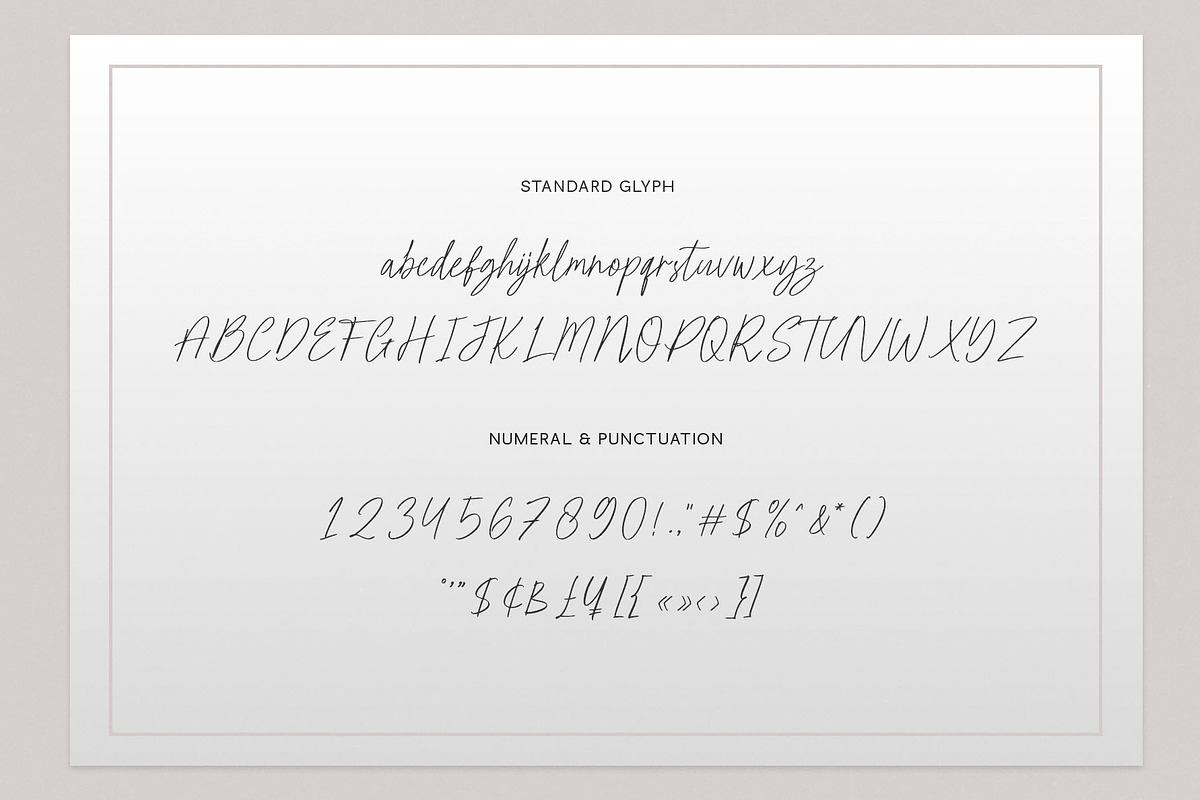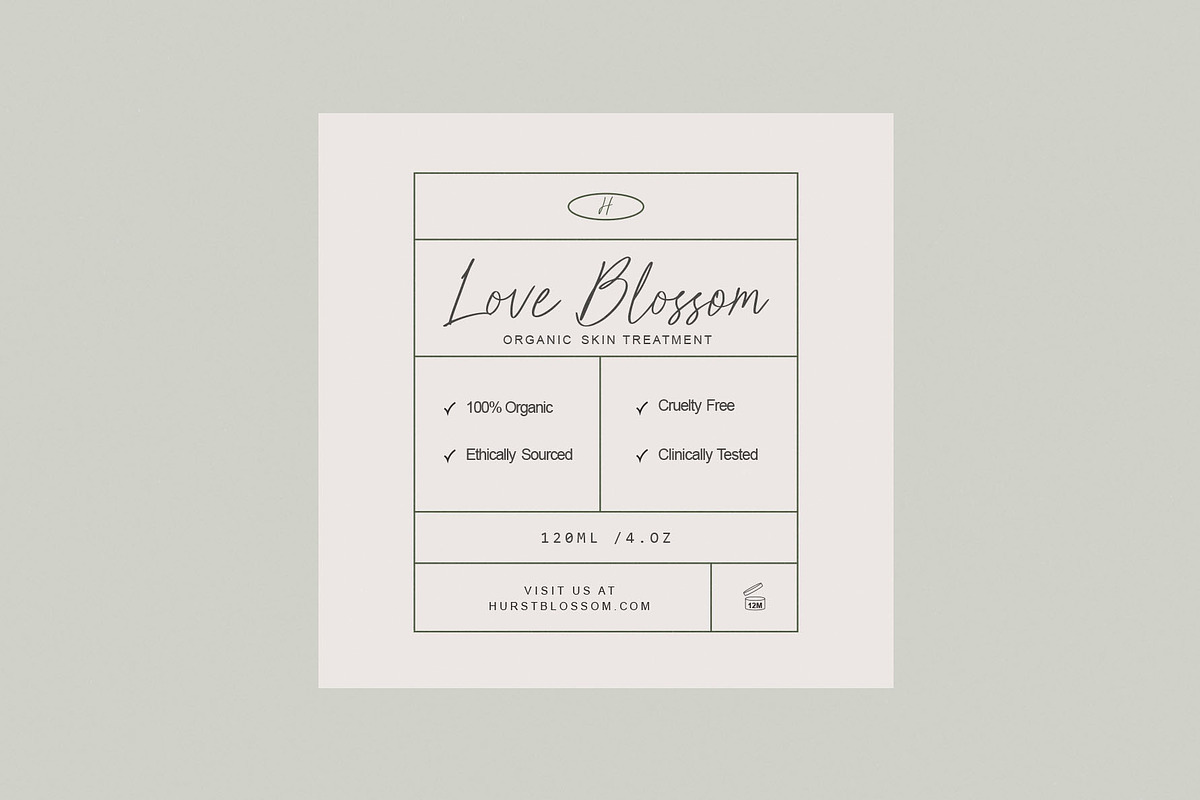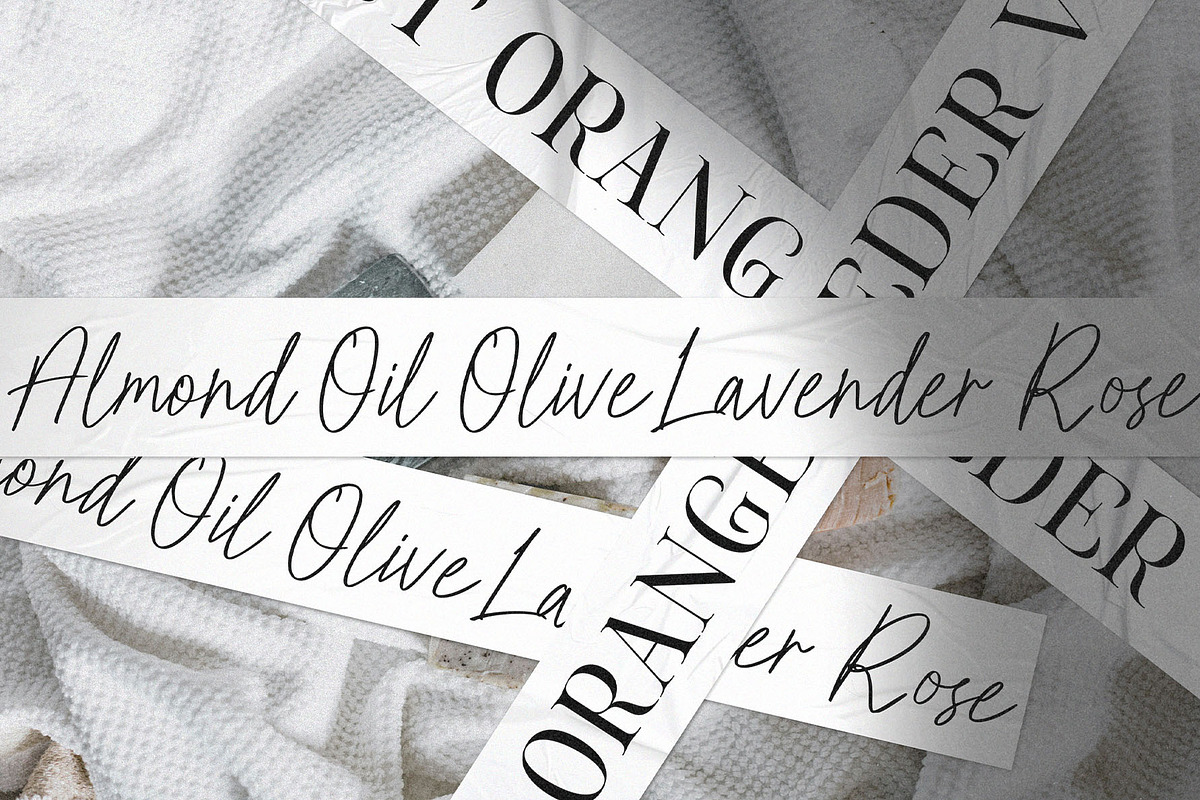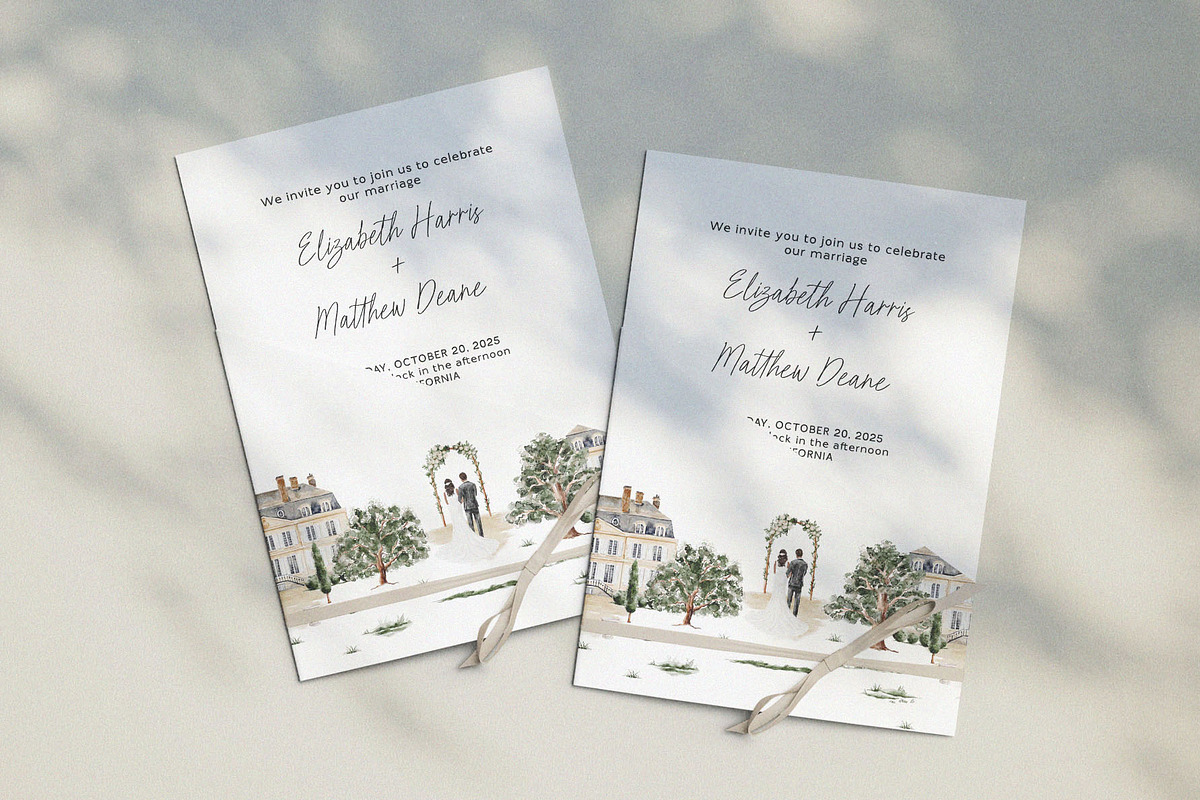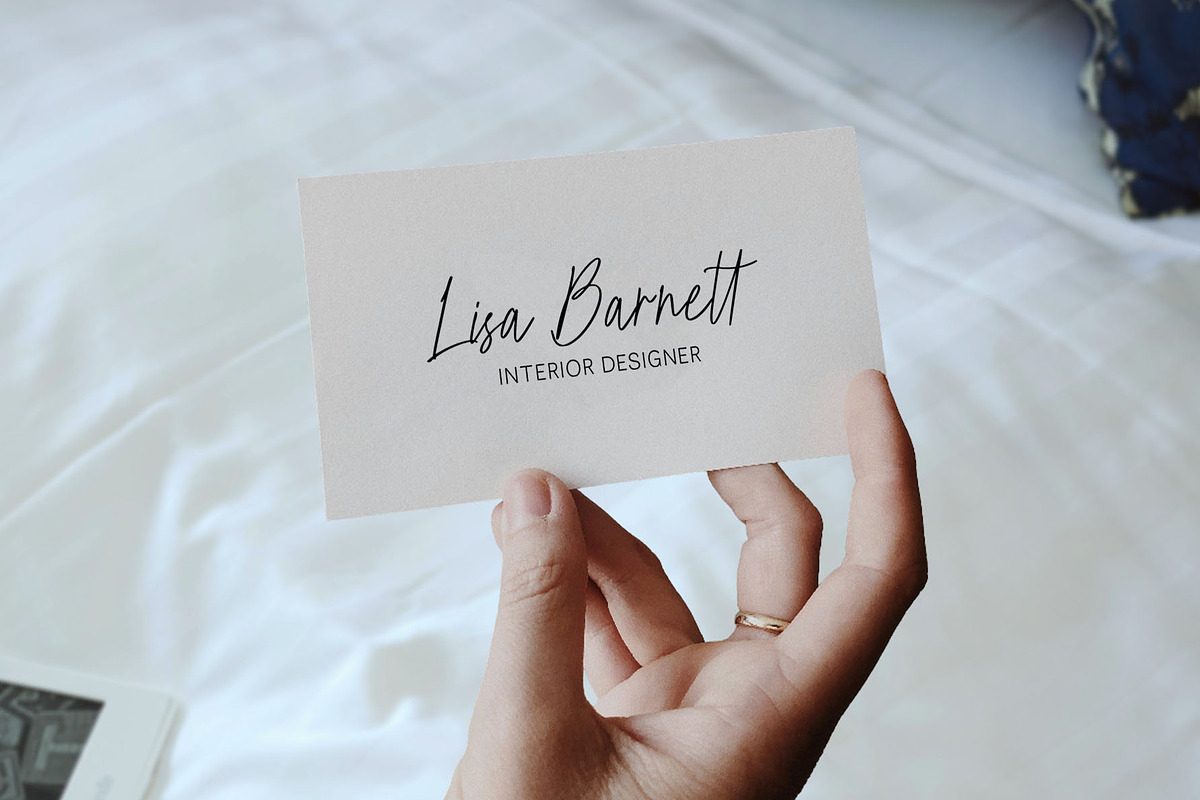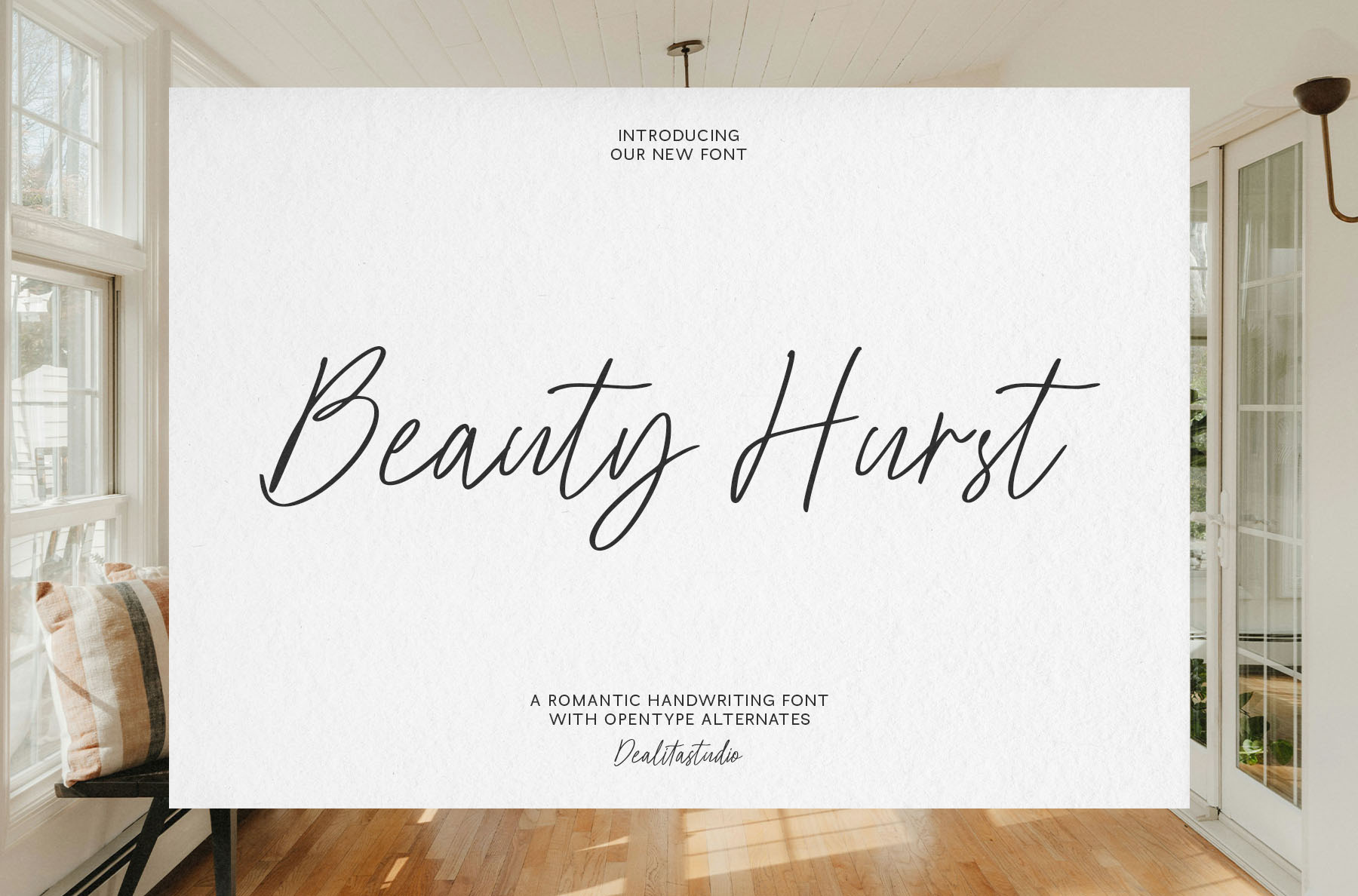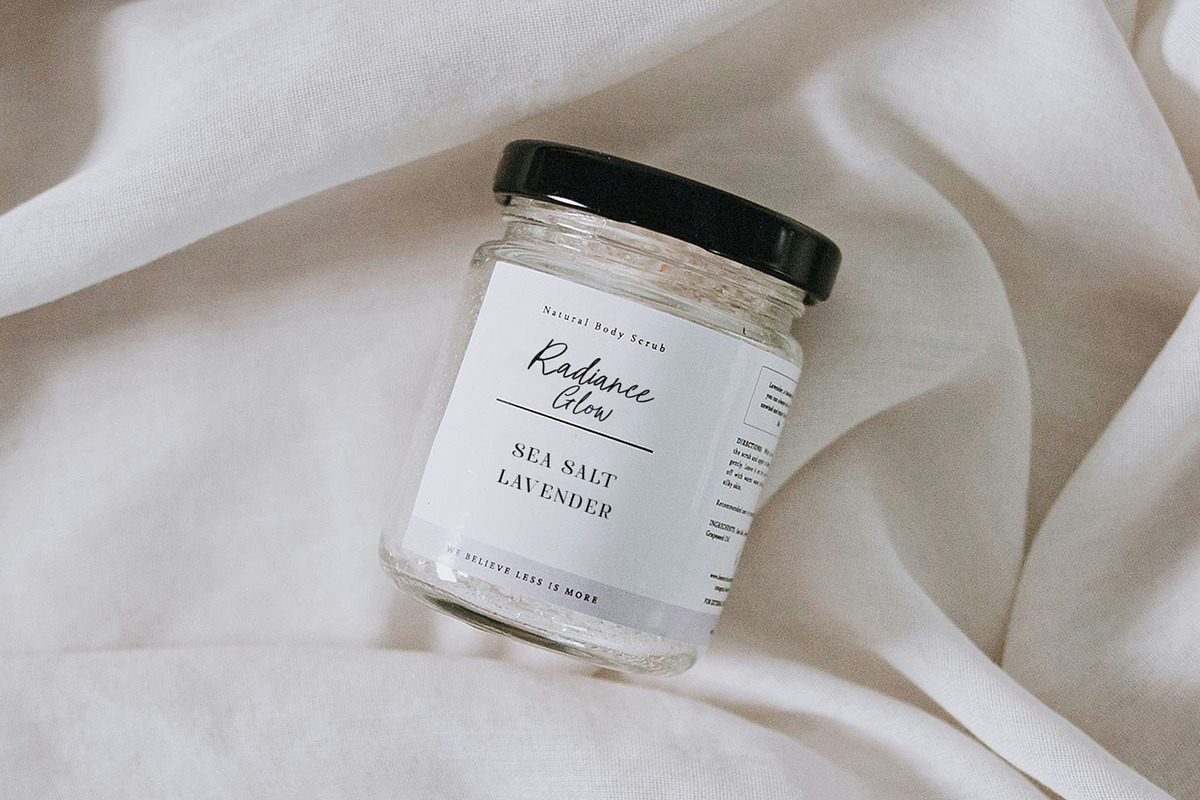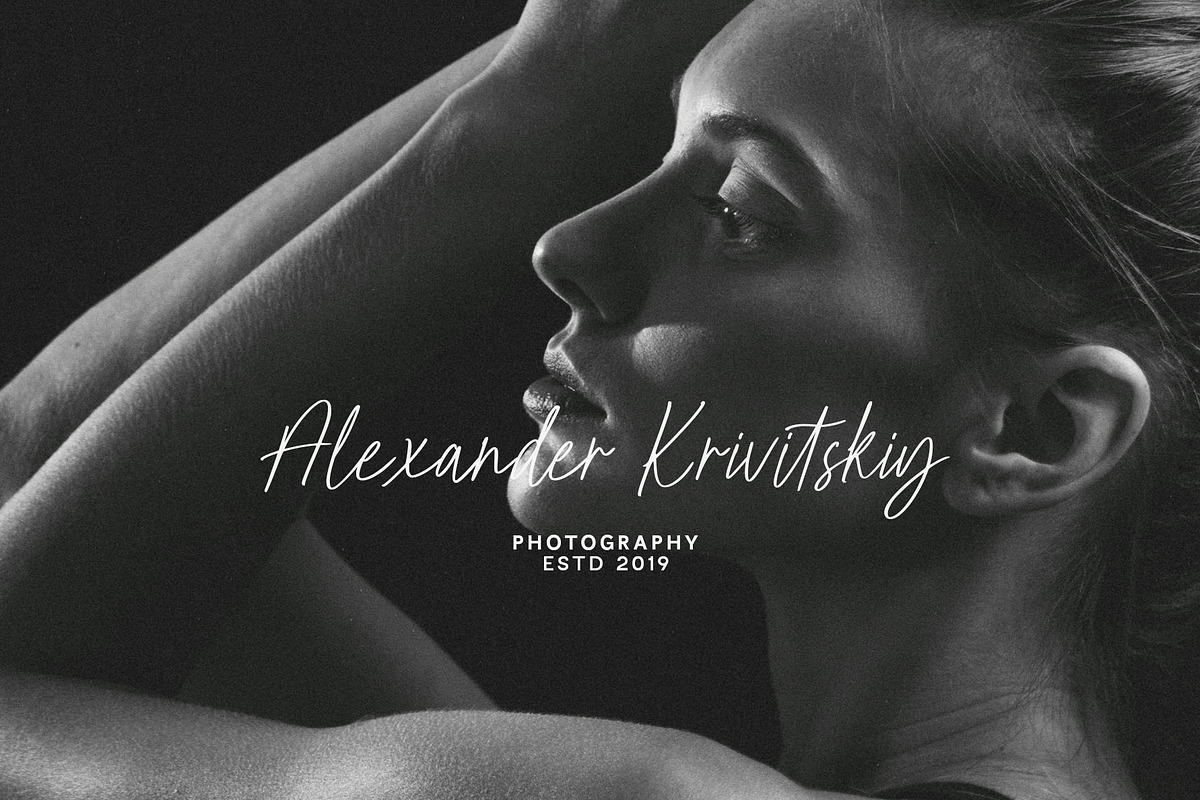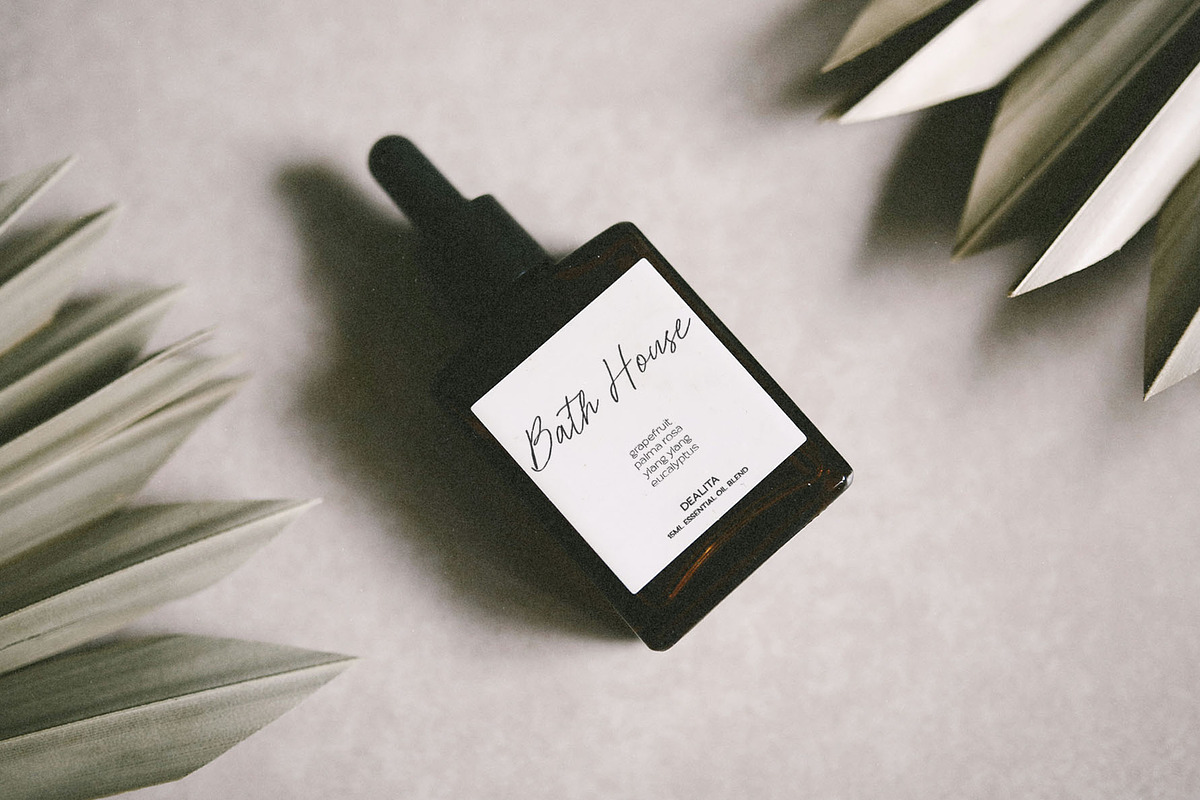
Beauty Hurst | Elegant Script font
Embrace the gentle allure of the spring season with Beauty Hurst, a stunningly romantic and elegant minimalist script font. Crafted to capture the fluidity of natural handwriting, this typeface breathes a sense of refined beauty into every stroke, making it the perfect typographical muse for designs that demand a soft, sophisticated touch.
Whether you are curating timeless wedding invitations for the 2026 spring bridal season, designing bespoke branding, or crafting modern minimalist logo designs, Beauty Hurst delivers effortless elegance. Perfectly attuned to the needs of modern digital creatives, its flowing aesthetic is exceptionally suited for social media graphics, lifestyle carousels, and eye-catching aesthetic text overlays for vertical video and TikTok content.